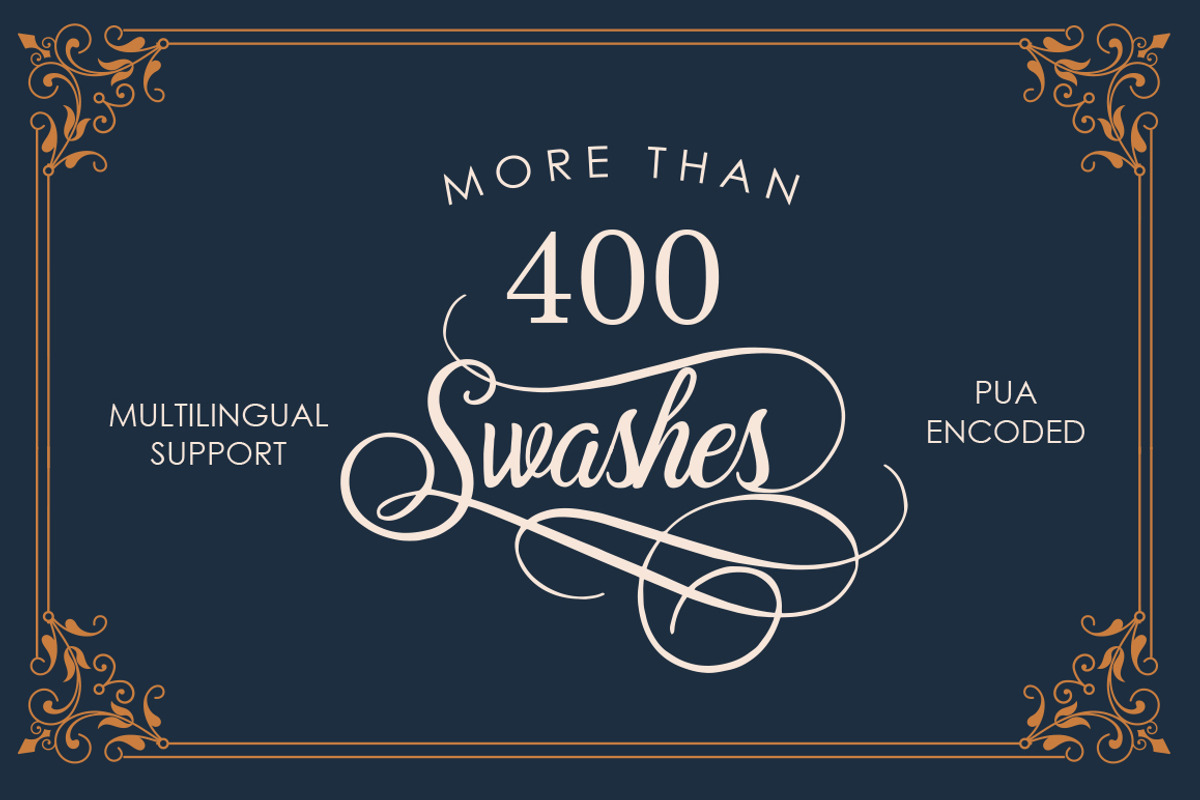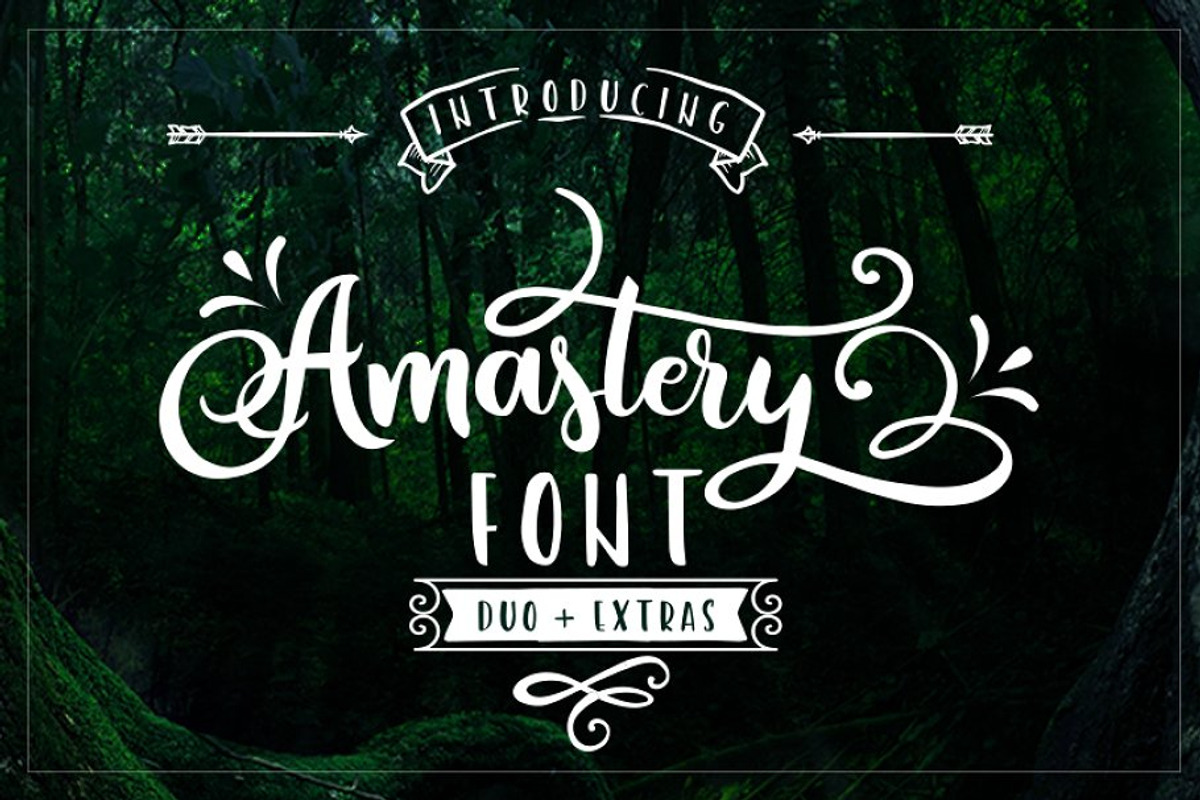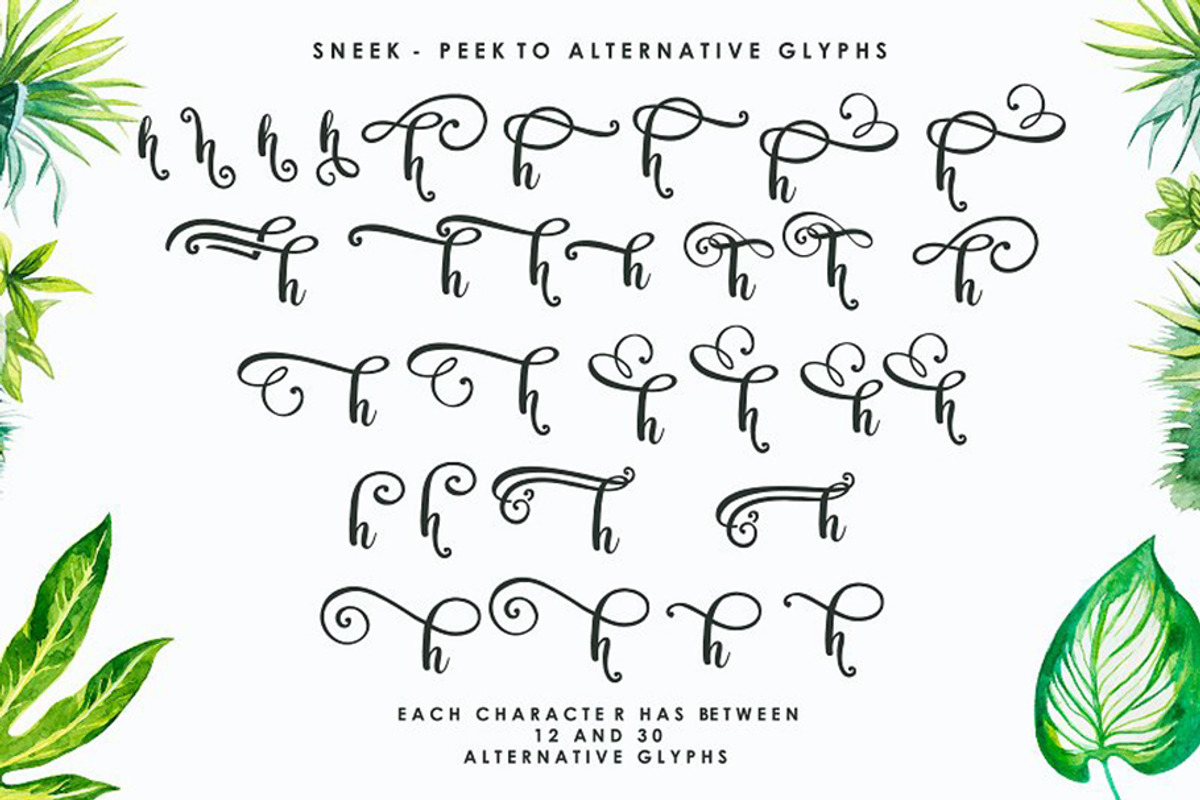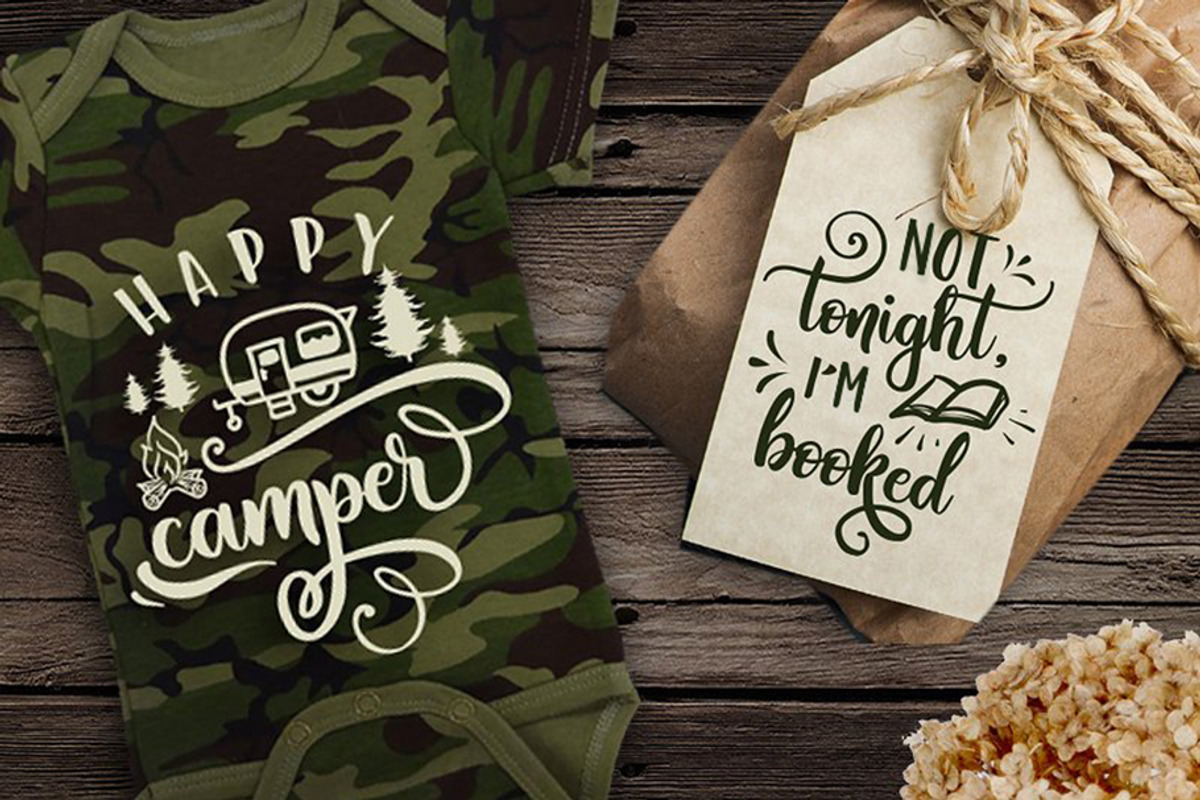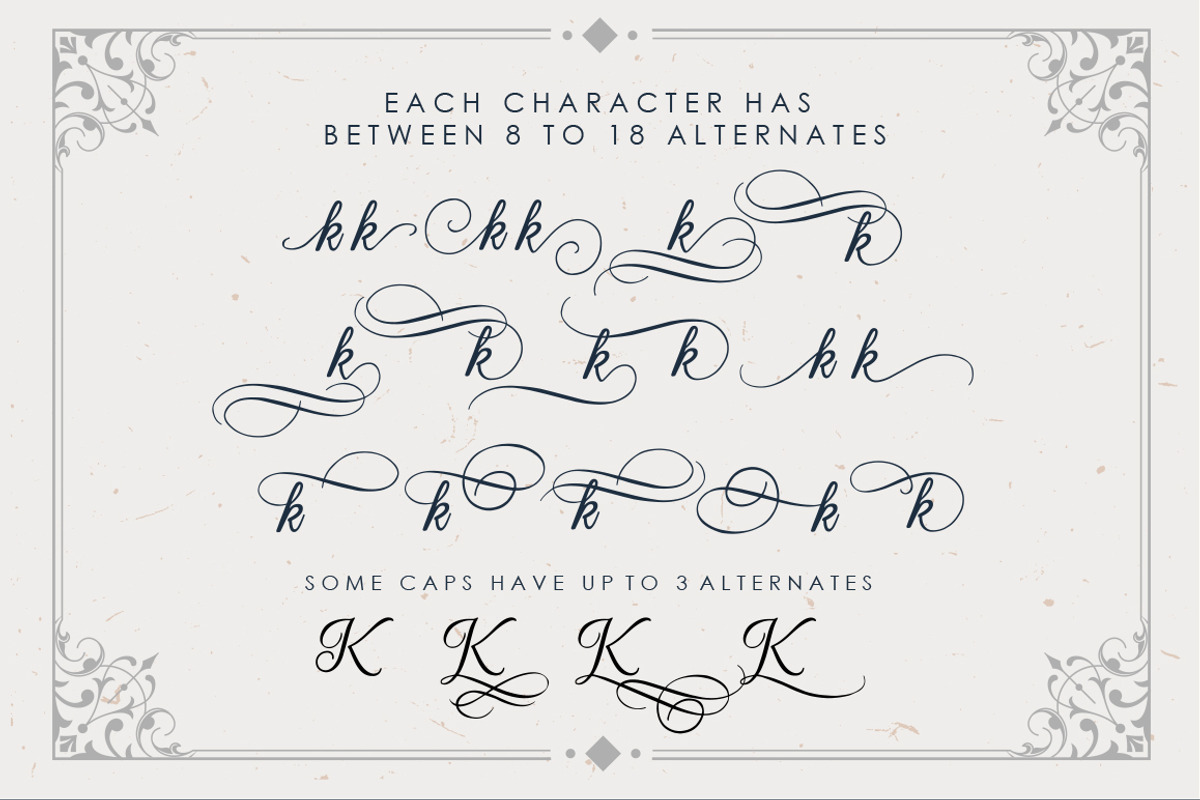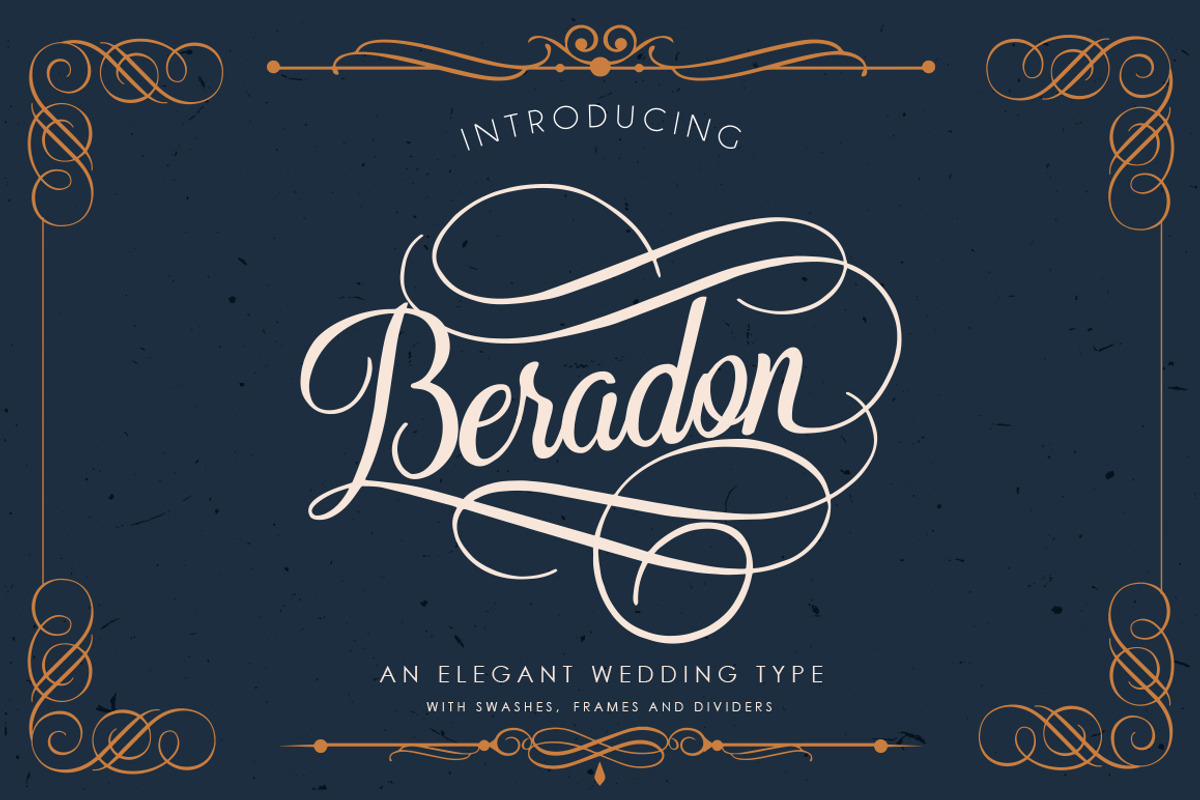
This bundle features 11 fonts and more than 600 illustrations! The fonts have been created especially for designers who like to create designs for cutting machines and software like Cricut and Silhouette.
Notes: All the fonts are PUA encoded (Private Use Areas - font specific code), so that all the alternative characters (with flourishes and swirly lines) can be easily accessed in full through Windows and Mac and you can load them into applications such as Cricut Design Space and Silhouette Studio.
- Amastery
- Beradon
- Biosha
- Berson Dream
- Bohema Spirit
- Divine Light
- Corisa
- Rebetha